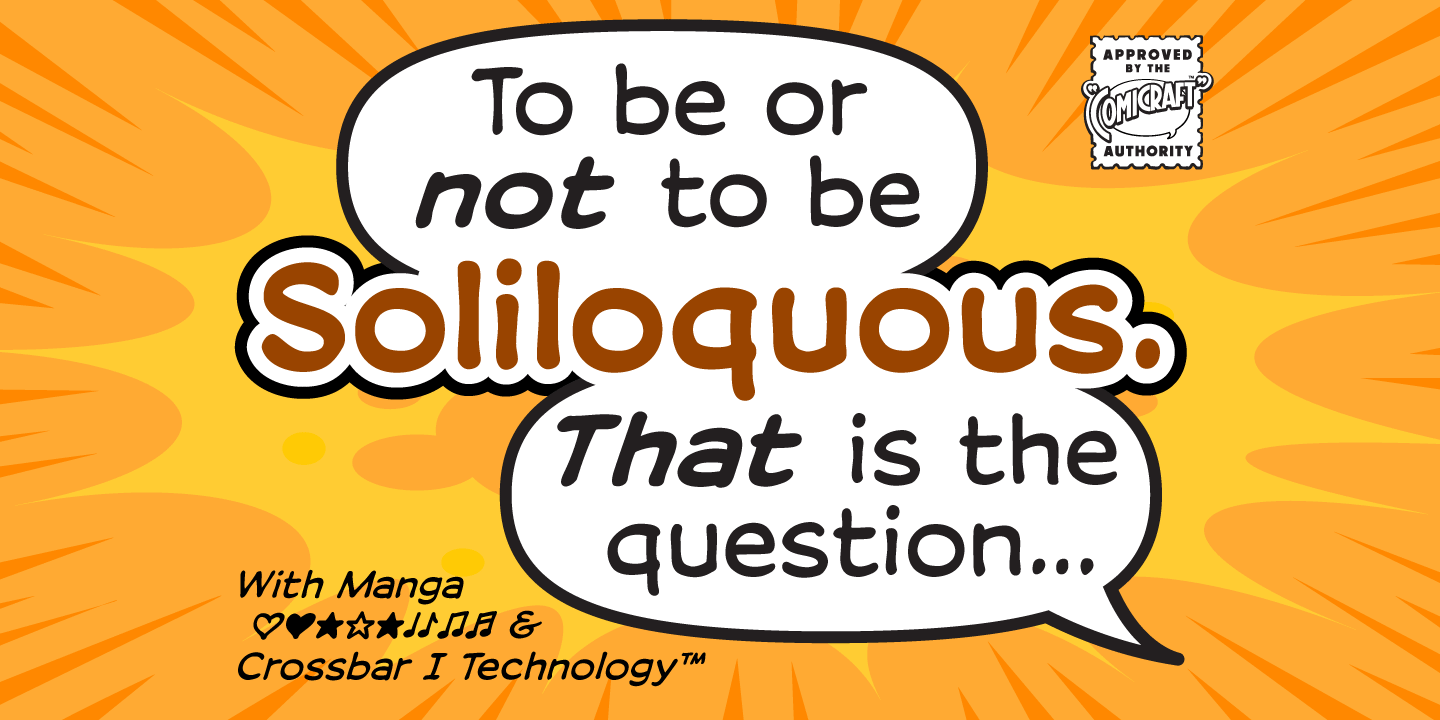
Soliloquous Font excels in various design applications including theatrical posters, literary publications, dramatic book covers, poetry collections, stage play materials, monologue presentations, artistic journals, and expressive editorial designs. This dramatic typeface adapts magnificently to both theatrical digital platforms and literary print materials, making it perfect for designers seeking dramatic expression and soliloquy-inspired eloquence in their visual communications.
Soliloquous Font generates excitement among creative professionals due to its expressive character and dramatic styling that instantly conveys theatrical depth and literary sophistication. The font's eloquent letterforms and monologue-inspired proportions create an immediate sense of dramatic intensity and literary artistry. Its theatrical personality makes it particularly appealing for brands wanting to communicate dramatic expression, literary excellence, and artistic soliloquy in their visual identity.
The Soliloquous Font family encompasses multiple weights and styles including Regular, Bold, Light, Italic, and Condensed variations. Each family member maintains dramatic design principles while offering distinct theatrical characteristics. The Light weight provides subtle literary elegance for refined applications, while the Bold version delivers powerful impact for dramatic headlines and theatrical brand statements.
Literary designers frequently choose Soliloquous Font Free Download for projects requiring both theatrical authenticity and artistic distinction. This typeface demonstrates exceptional effectiveness across cultural industries including theaters, publishing houses, literary magazines, and artistic organizations. Its expressive character allows institutions to communicate dramatic artistry while maintaining excellent readability and eloquent visual appeal that captures the essence of theatrical performance and literary soliloquy.